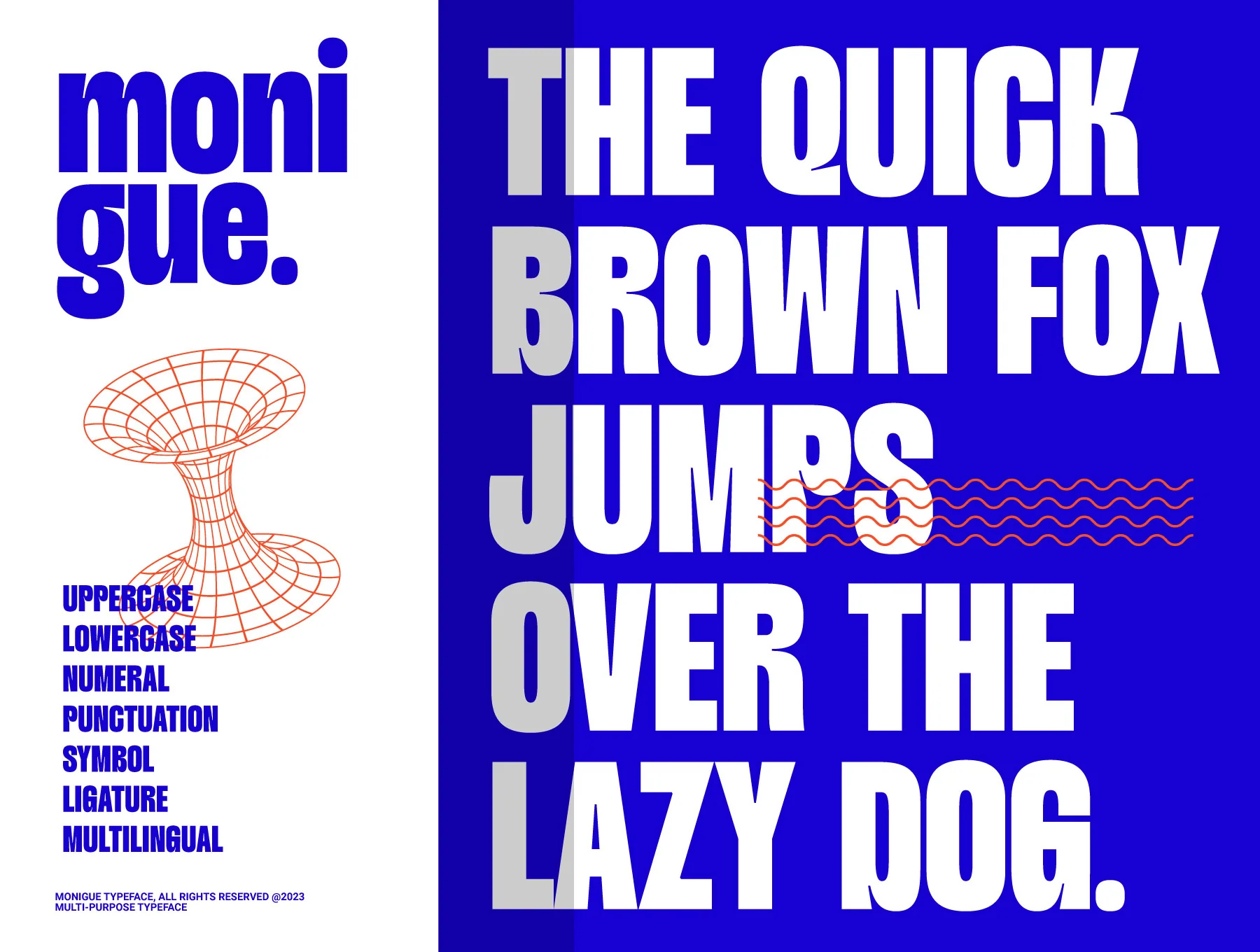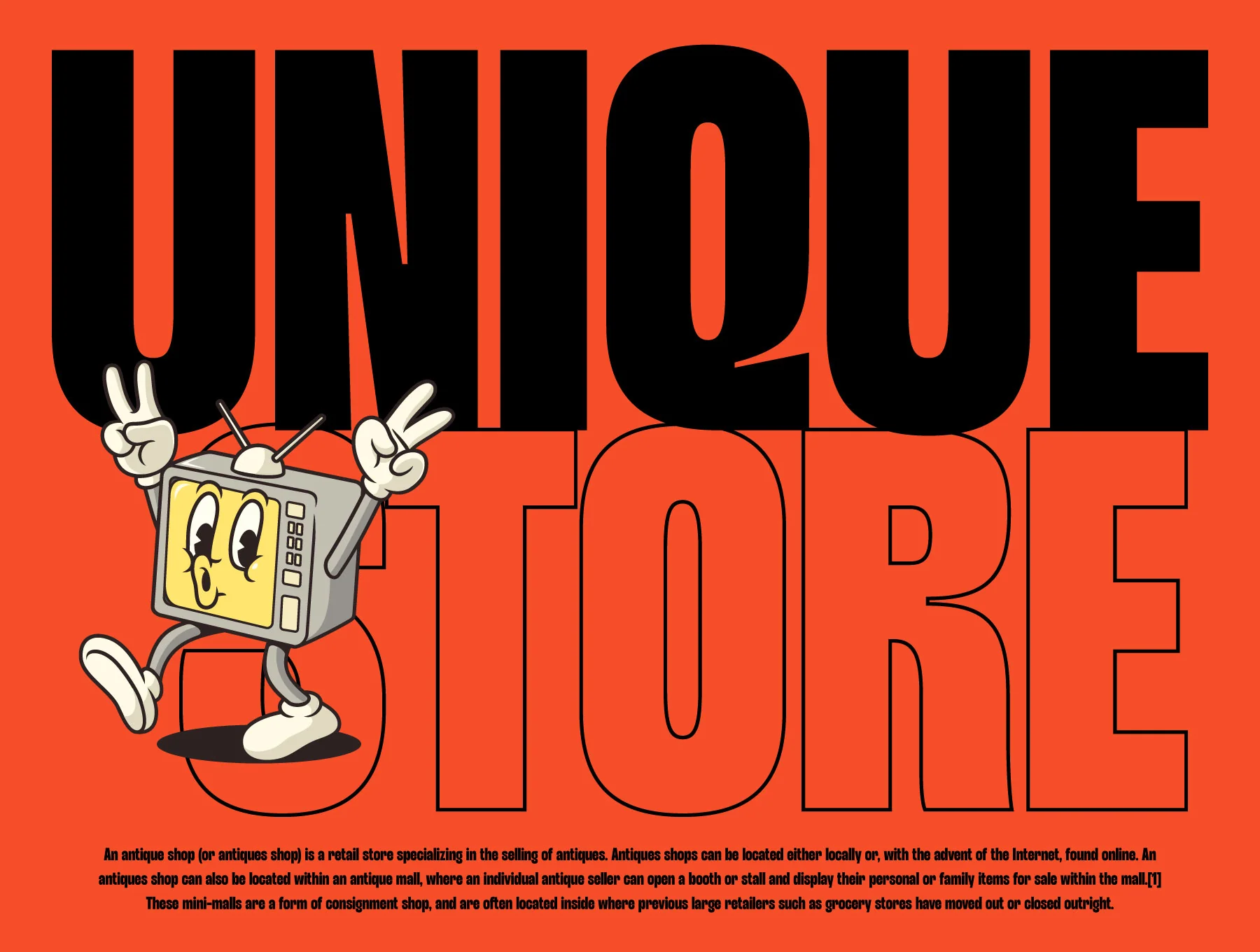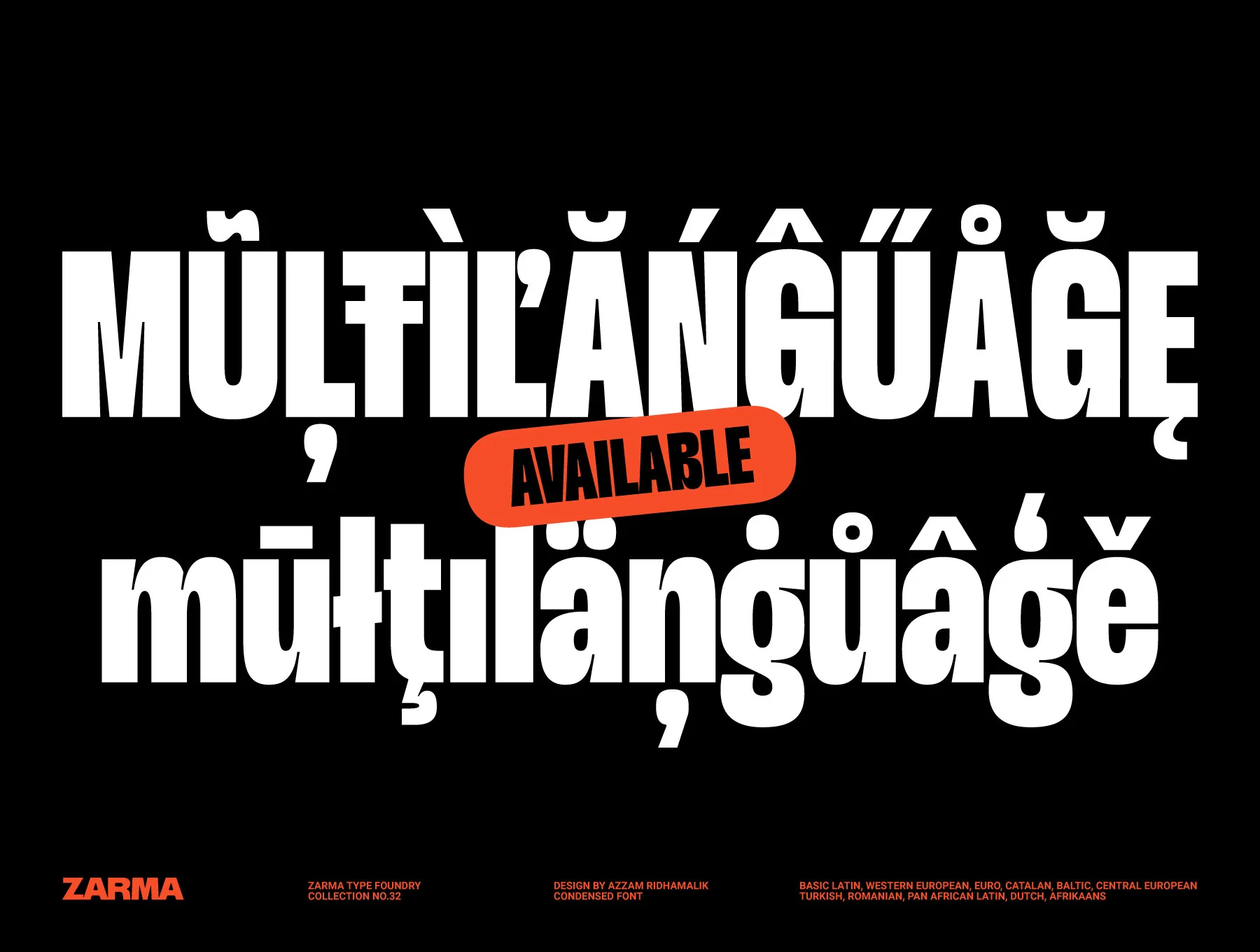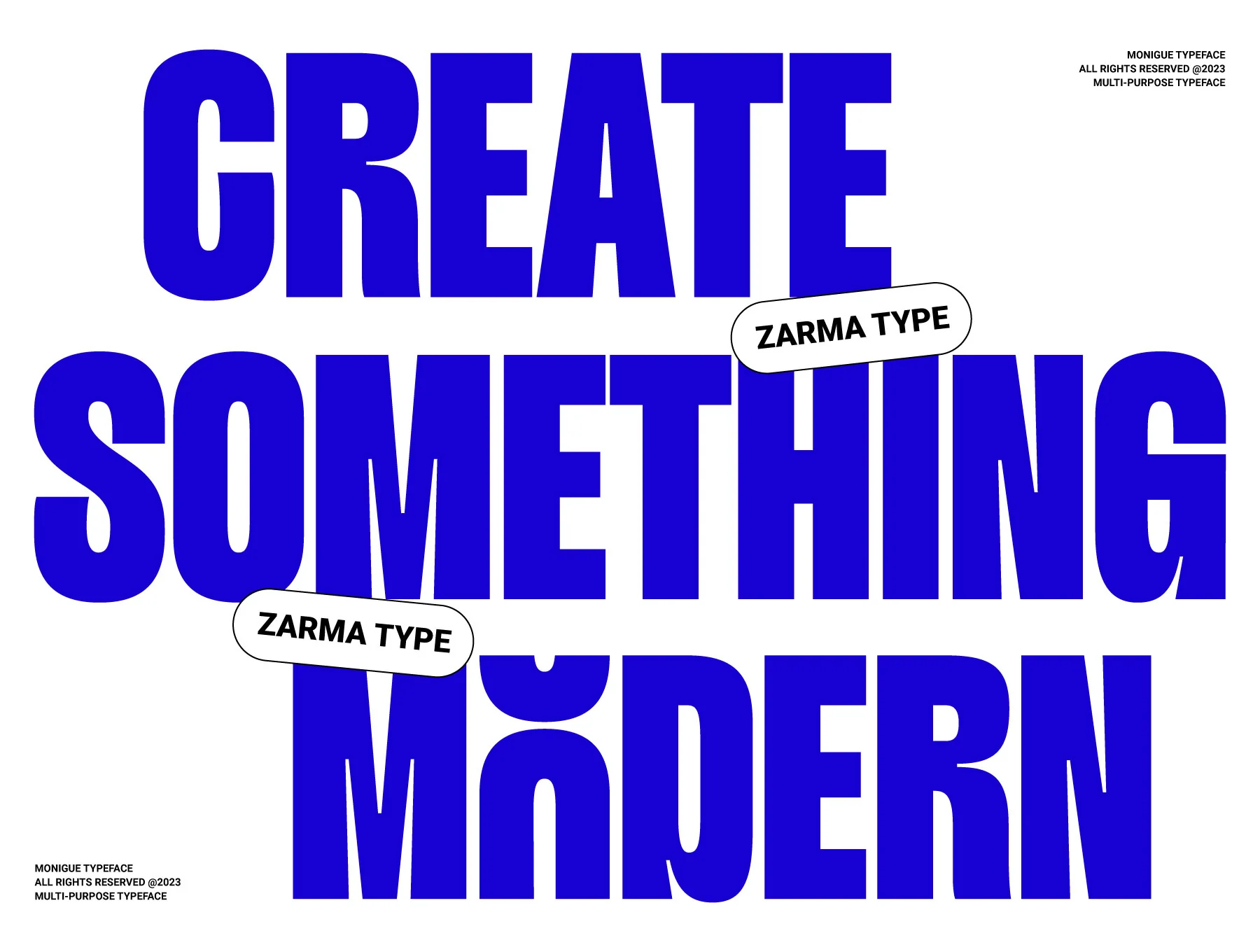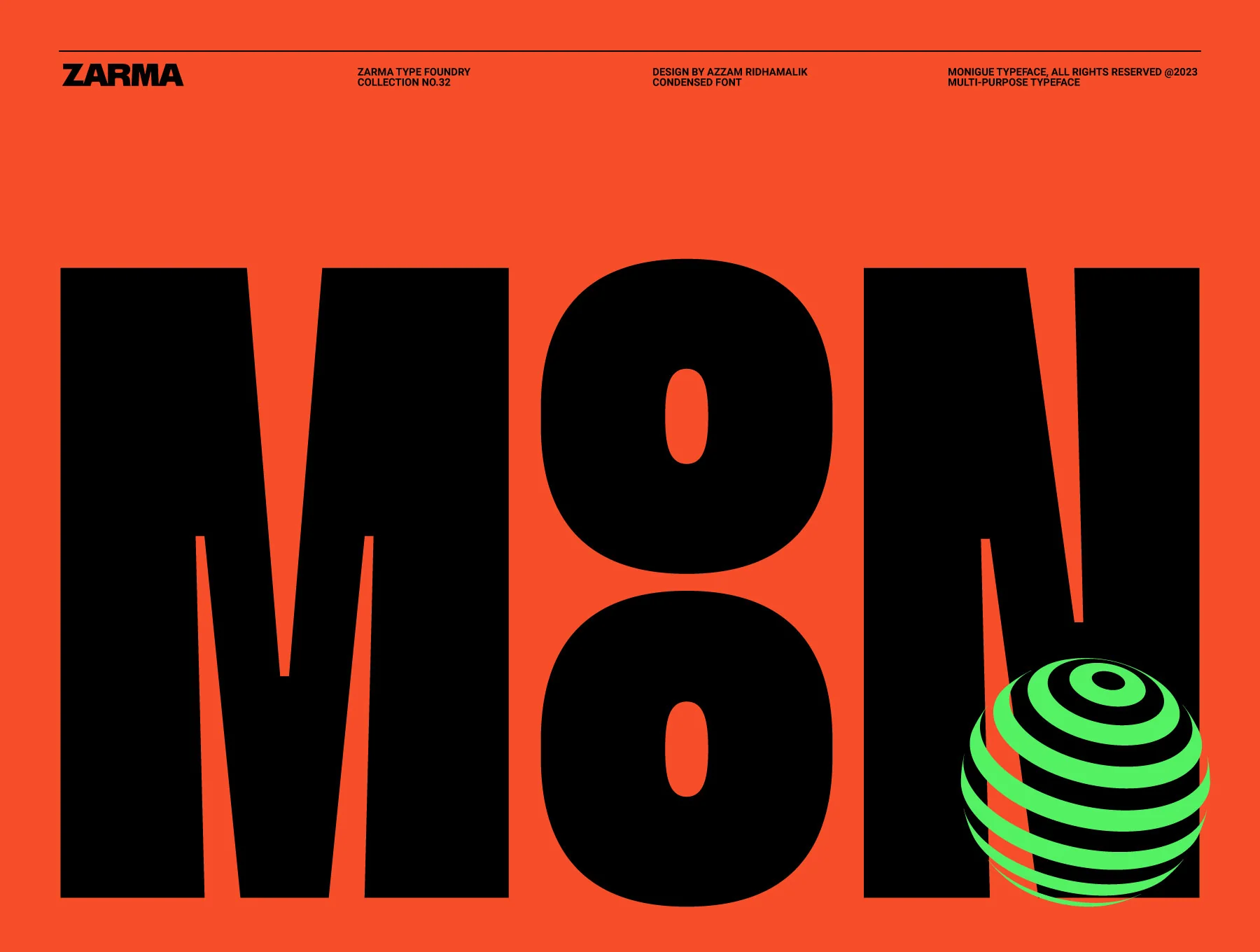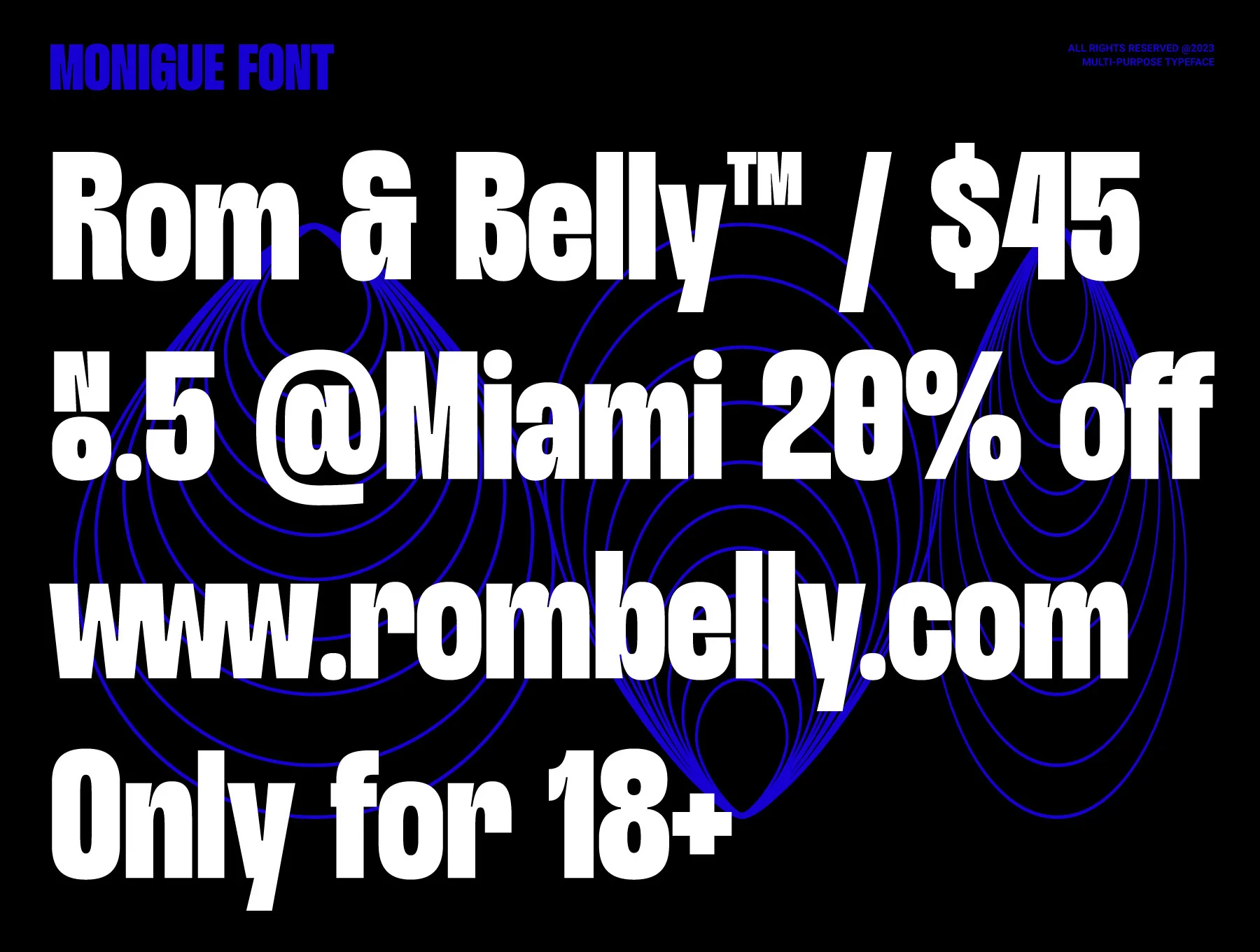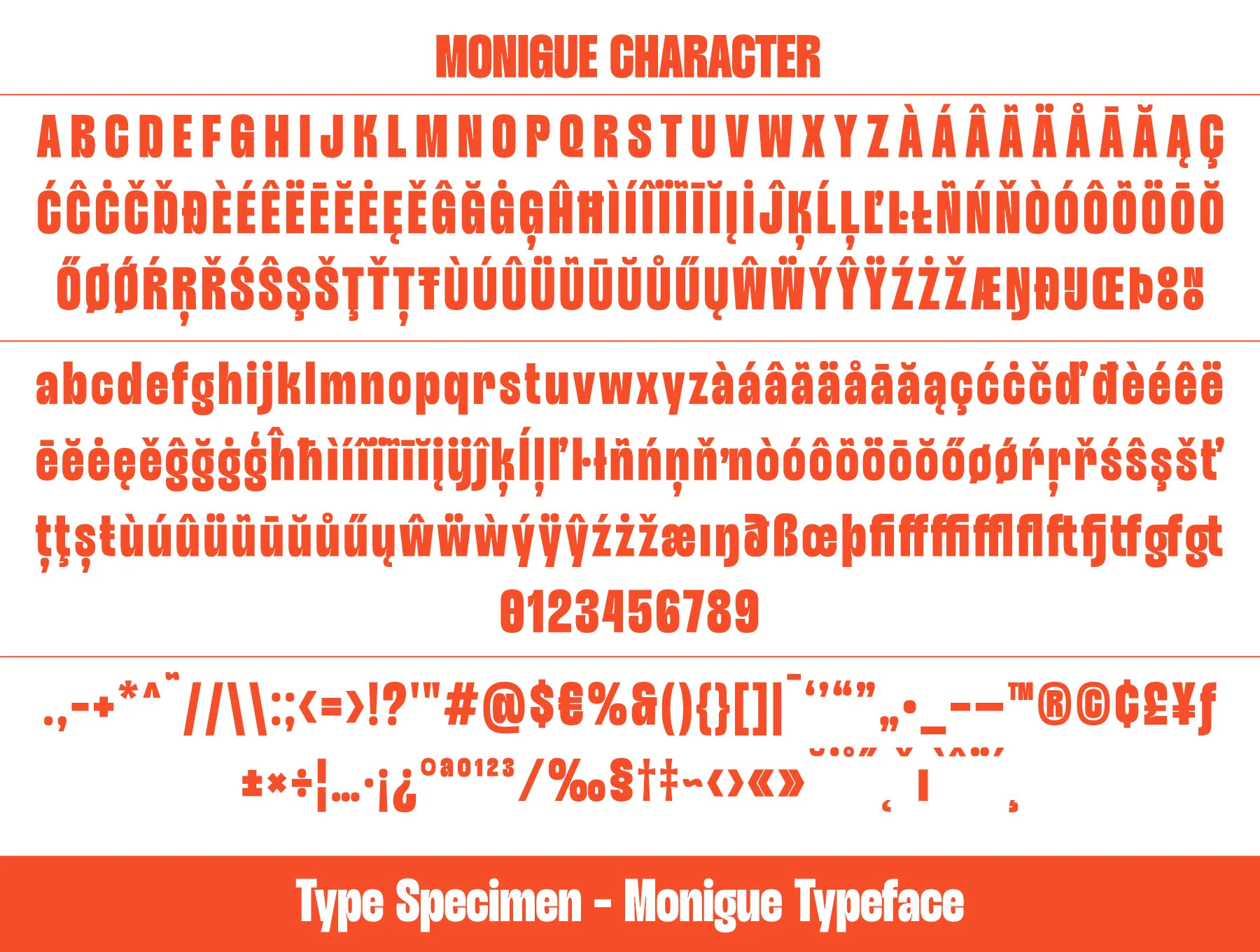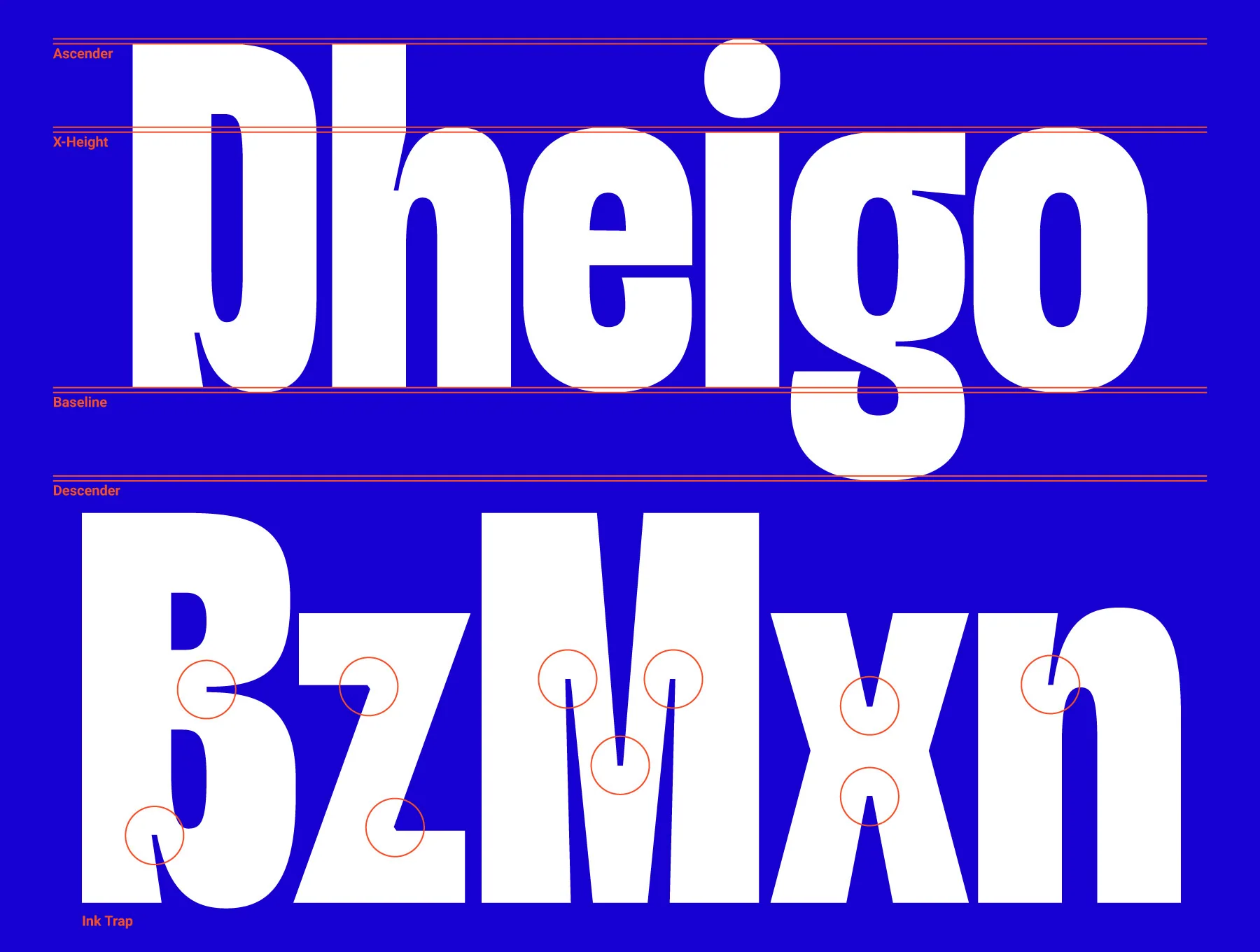
Monigue - Condensed Sans Font
Contemporary narrow sans serif font featuring over 370 glyphs
Capital letters, small letters, numbers, and punctuation
Ligature features with multilingual support
Narrow sans serif style
Monigue is a powerful condensed sans serif with a bold 2000s-inspired modern feel, ideal for posters, web headlines, UI, and standout logos. Built for display use, it includes OpenType features plus Extended Latin support with 370+ glyphs across 88+ languages. Files: OTF, TTF, WOFF, WOFF2. Alternate glyphs via Glyphs panel in Photoshop or Illustrator.